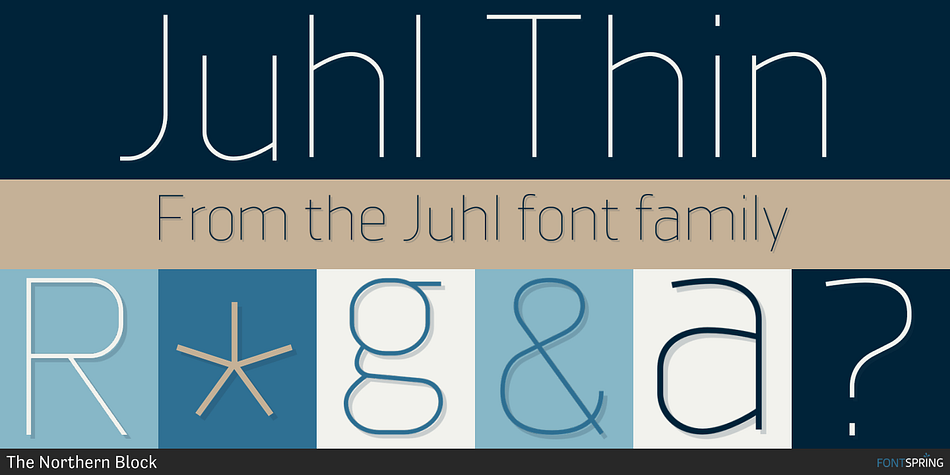
Juhl Thin
Juhl is a sans serif font family. This typeface has sixteen styles and was published by The Northern Block.
A geometric sans serif typeface, the square horizontal structure is evenly balanced with smooth curves and arcs producing a clean, distinct font ideal for both print and on screen uses.
A geometric sans serif typeface, the square horizontal structure is evenly balanced with smooth curves and arcs producing a clean, distinct font ideal for both print and on screen uses.  Further enhancements to improve legibility with the use of consistent stroke contrast and tapered diagonal angles. Details include eight weights and italics, 600 characters, Cyrillic, five variations of numerals, manually edited kerning and Opentype features.